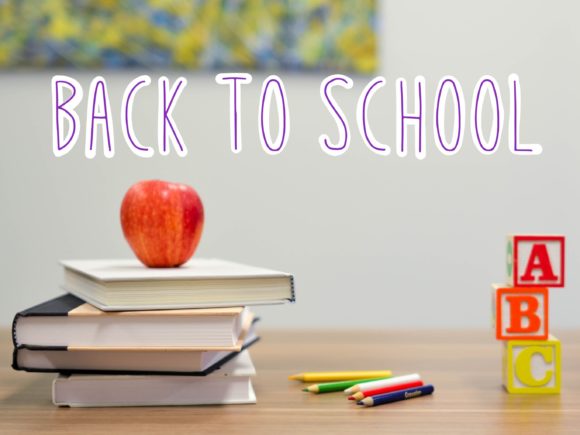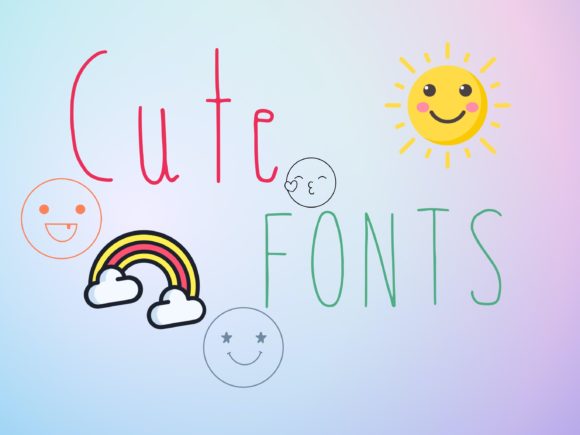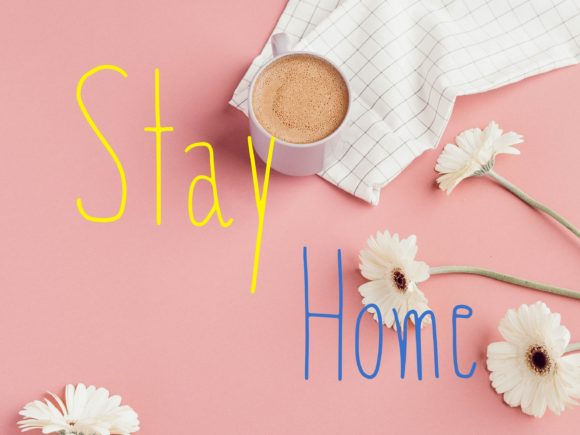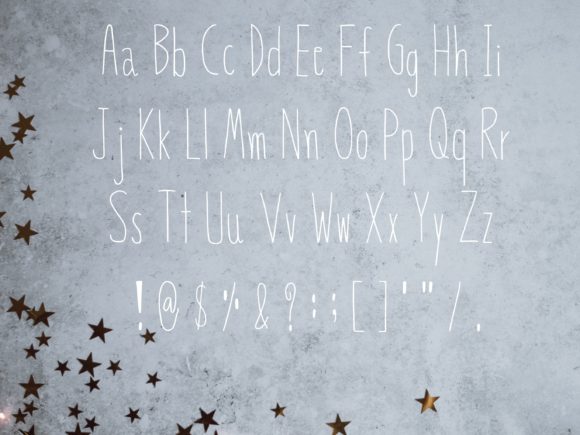
Introduction to Skinny Butterfly Font
As a designer, have you ever found yourself rummaging through your digital library for the perfect font to add a personal touch to your next creative project? I’m sure you have! For me, that moment often comes when I’m brainstorming ideas for a new chalkboard quote or teaching material. The search for the perfect font can be overwhelming, but what if I told you there’s a hidden gem waiting to be discovered?
Enter the Skinny Butterfly Font, a delightful and simple handwritten font that’s sure to capture your heart. Its authentic look is reminiscent of traditional chalkboard writing, adding a touch of realism to your designs. Whether you’re a seasoned designer or just starting out, this free download is a valuable resource that’s sure to elevate your creative projects.
Key Features of Skinny Butterfly Font
- High-quality design resource for creative projects, offering a delicate and elegant aesthetic.
- Features a unique, hand-drawn style with intricate details, setting it apart from other fonts.
- Includes multiple weights and styles, providing versatility for a wide range of design applications.
Honest Review: Skinny Butterfly Font
I recently stumbled upon the Skinny Butterfly Font while searching for a unique design resource for a creative project. I was excited to try it out and see if it would add some flair to my design.
- ✨ The Skinny Butterfly Font has a beautiful, whimsical feel to it, making it perfect for projects that require a touch of elegance.
- ⚠️ The font may not be suitable for projects that require a bold or dramatic look, as it can come across as a bit delicate.
- ⚠️ The font’s legibility can be a bit of an issue at smaller font sizes.
Overall, I was impressed with the Skinny Butterfly Font’s unique design and the fact that it’s available for free download. While it may have some limitations, I think it’s a great resource for designers who want to add a touch of whimsy to their creative projects.
Tips for Getting the Most Out of the Skinny Butterfly Font
For optimal results, use the Skinny Butterfly Font in creative projects where a delicate, high-quality font is needed. Experiment with different font sizes and styles to find the perfect fit for your design.
The Skinny Butterfly Font is ideal for wedding invitations, baby shower invitations, and other delicate design projects. Its transparent background and high-quality design make it perfect for adding a touch of elegance to your creative project.